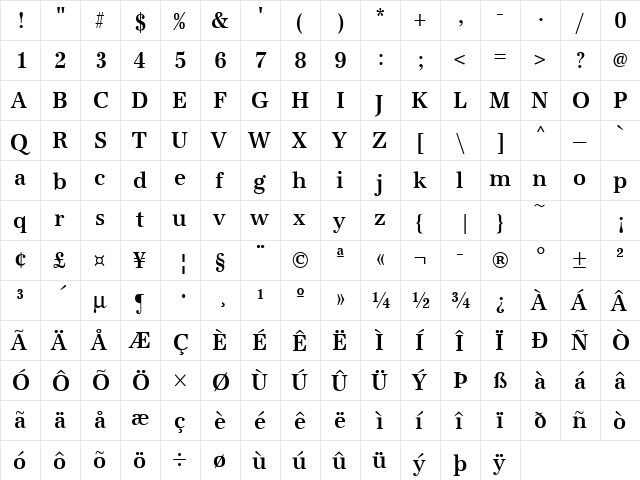
URWAntiquaTMedExtNar Regular
Design Context for URWAntiquaTMedExtNar Typeface
URWAntiquaTMedExtNar is a composed and adaptable typeface that performs quietly and consistently across a wide range of design contexts.